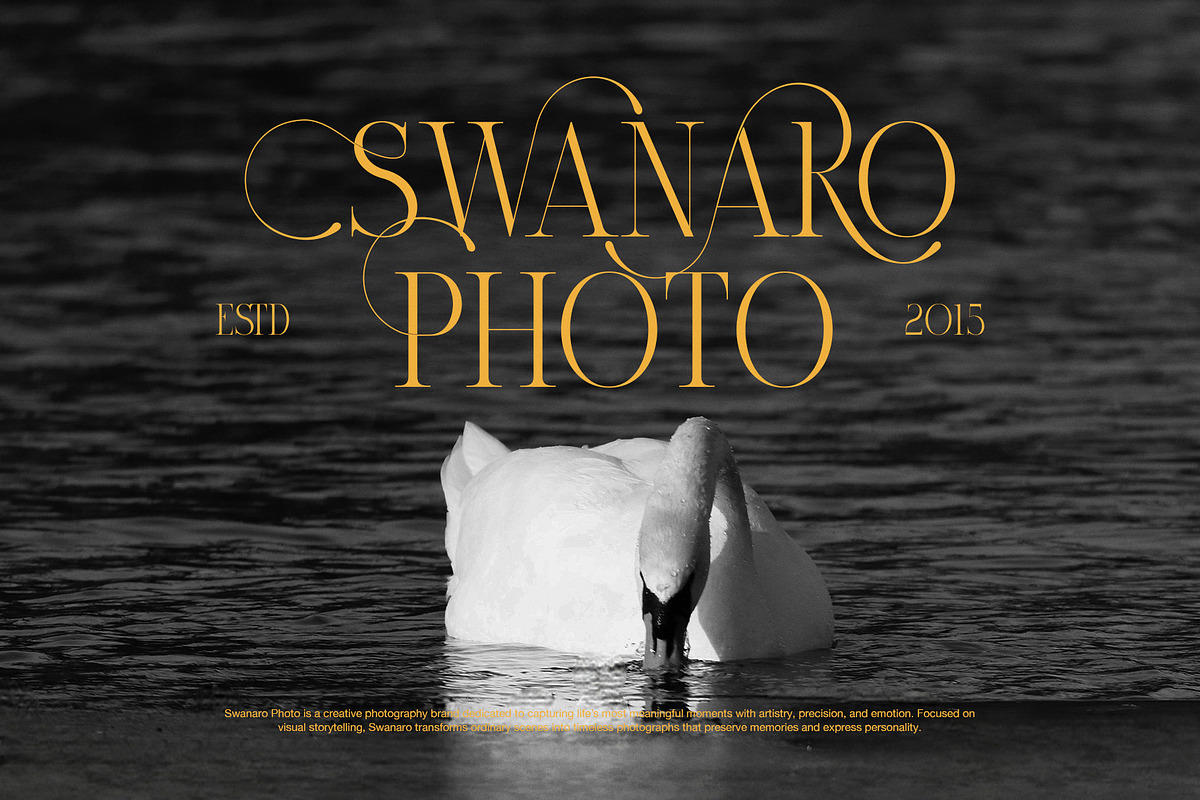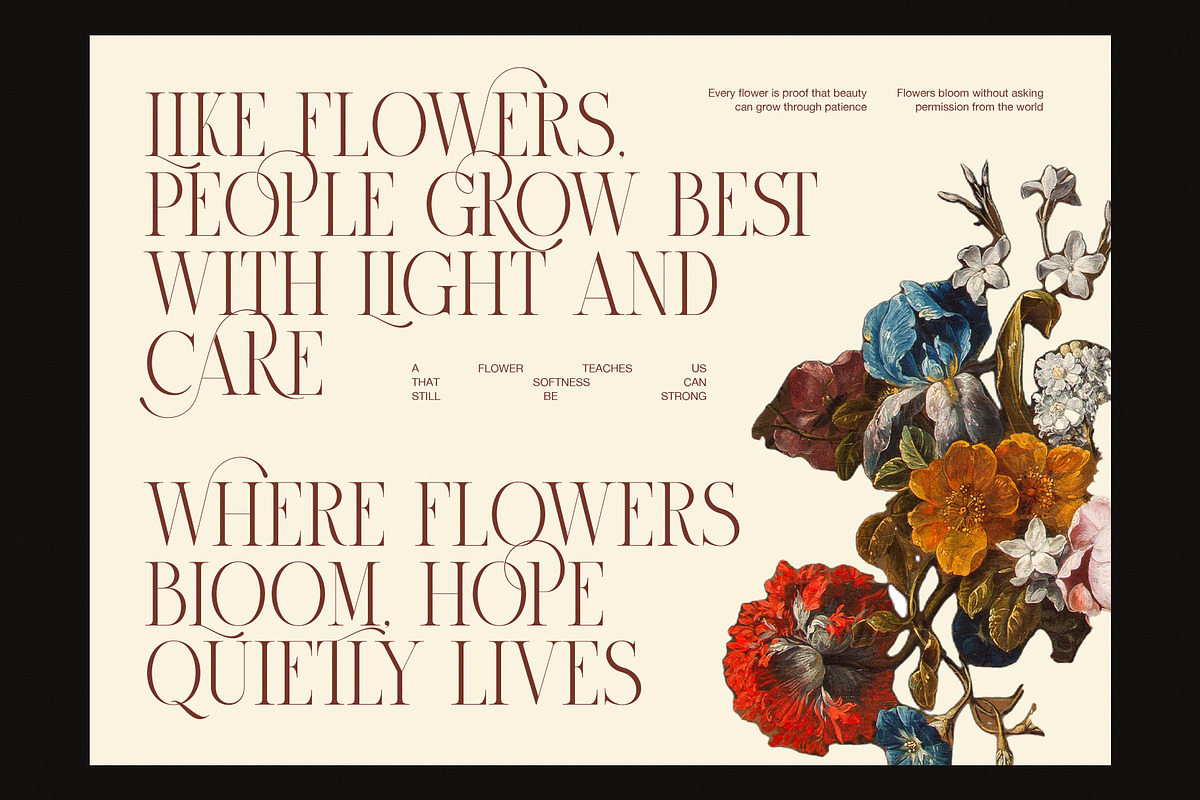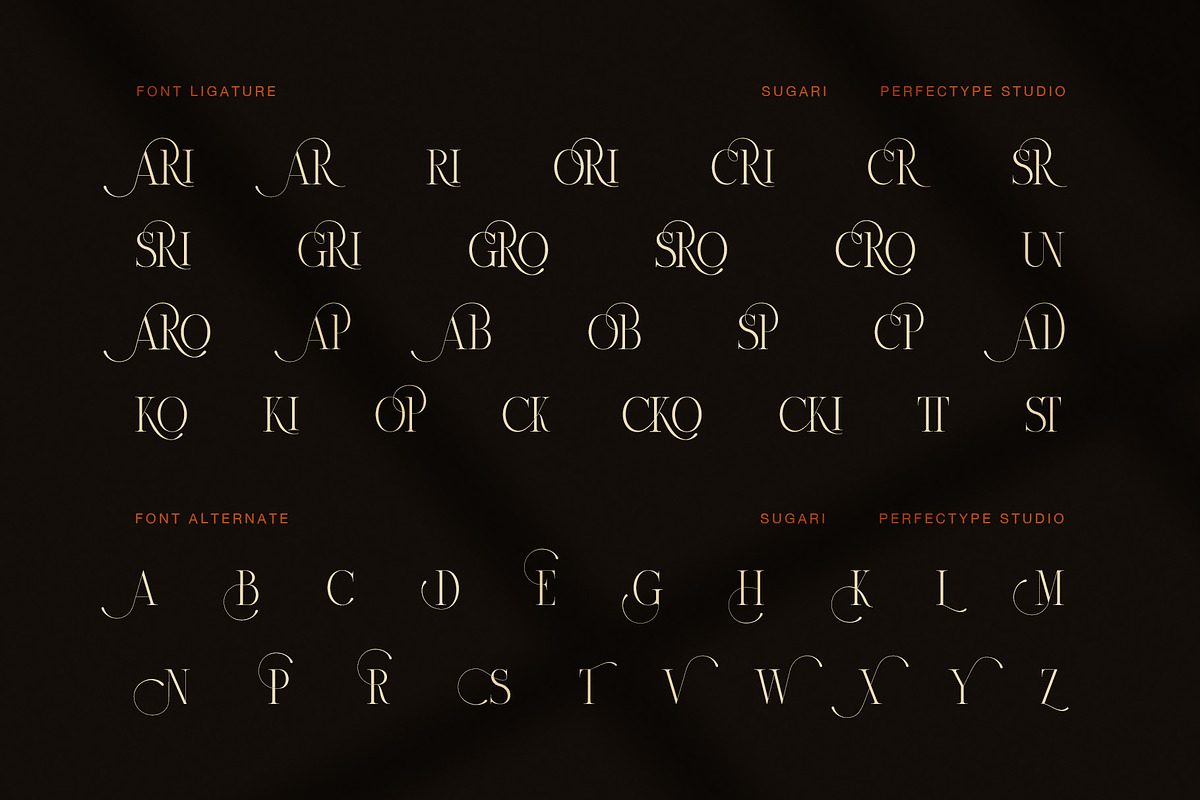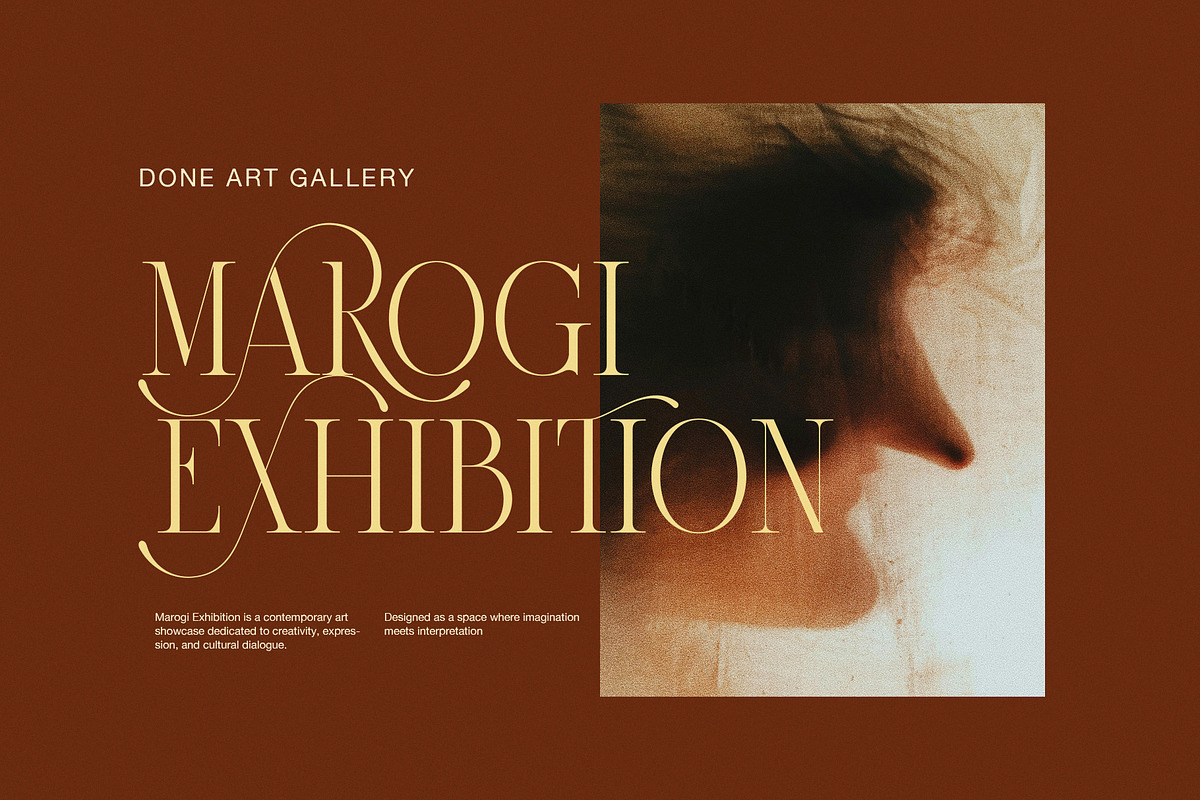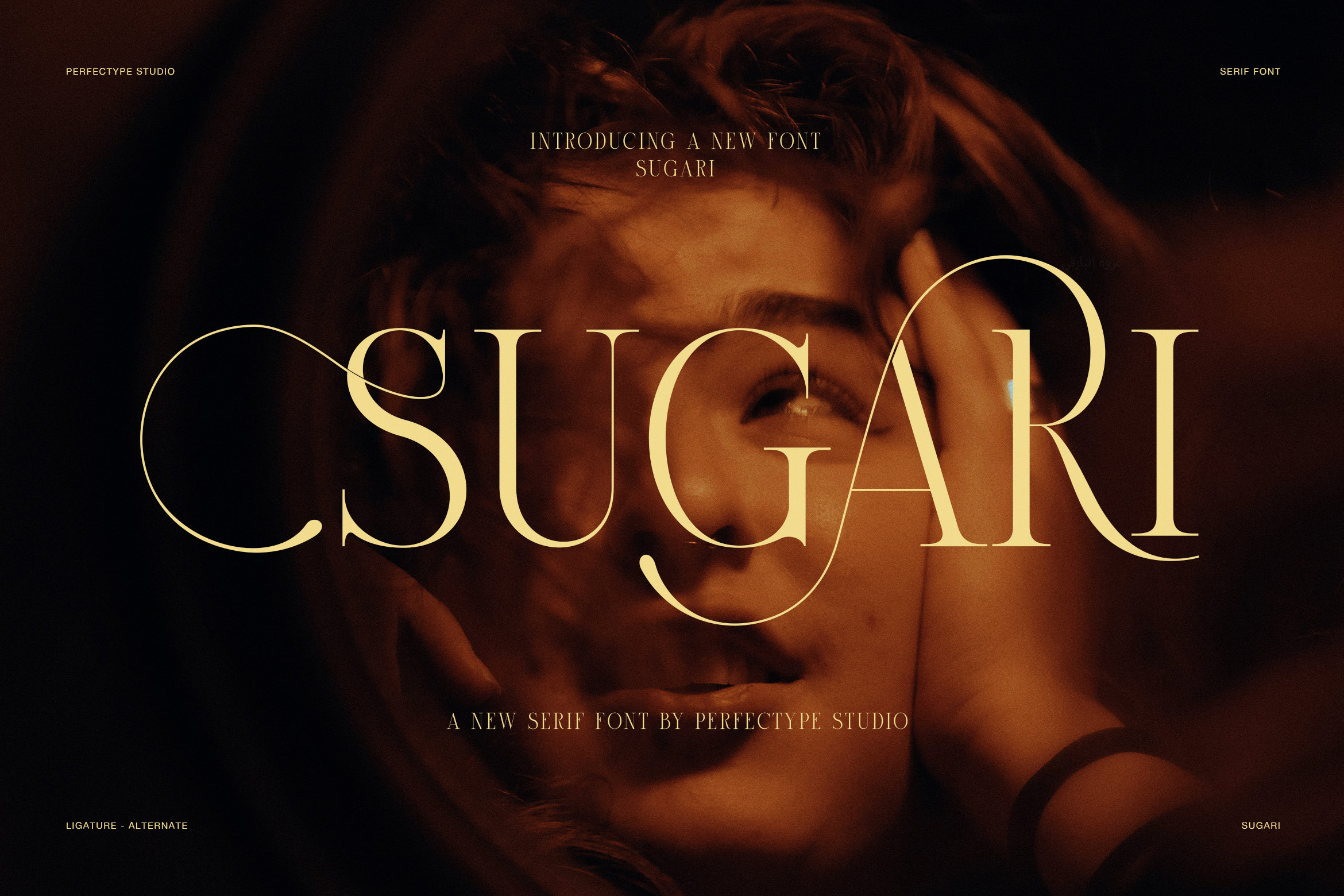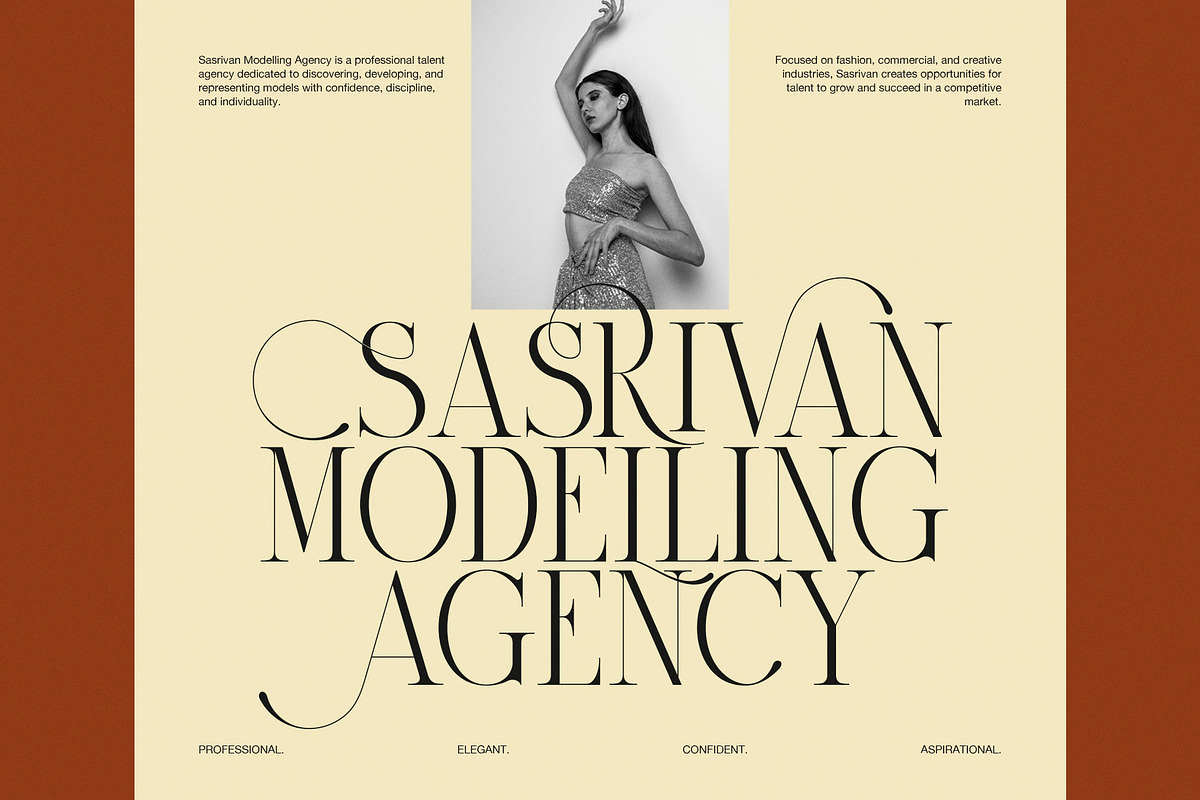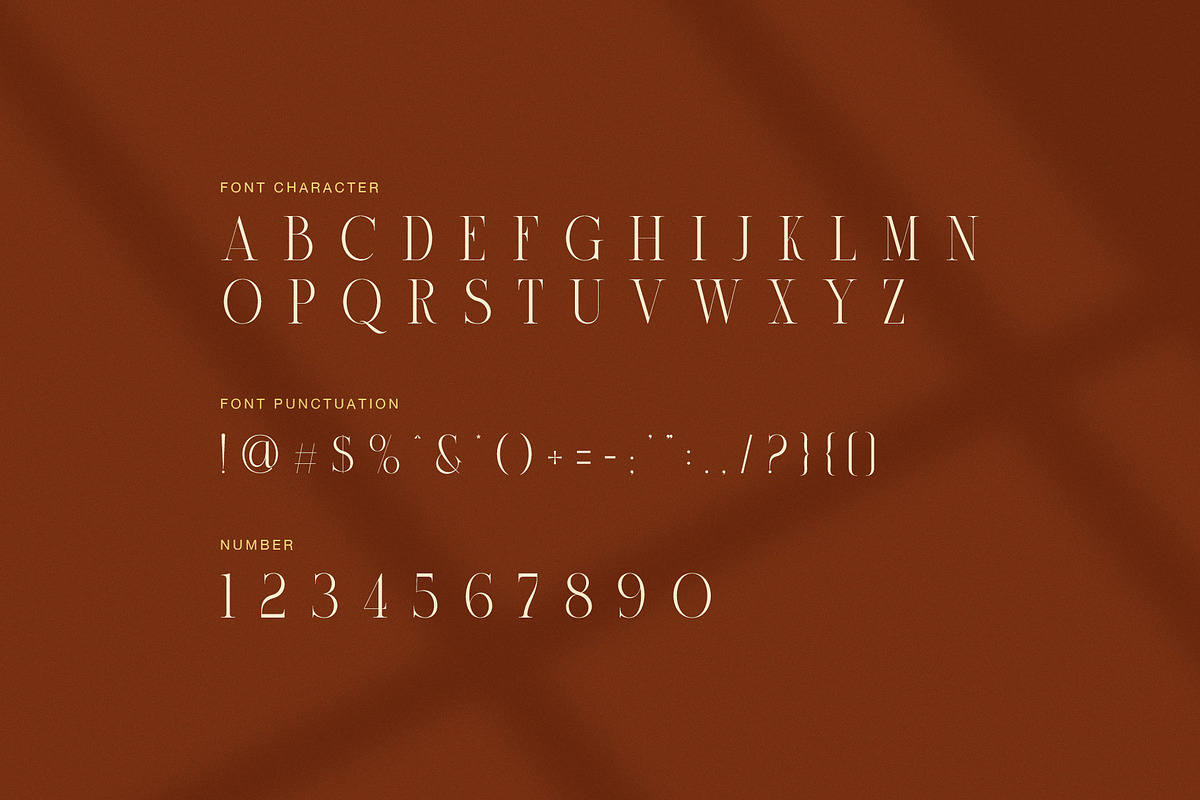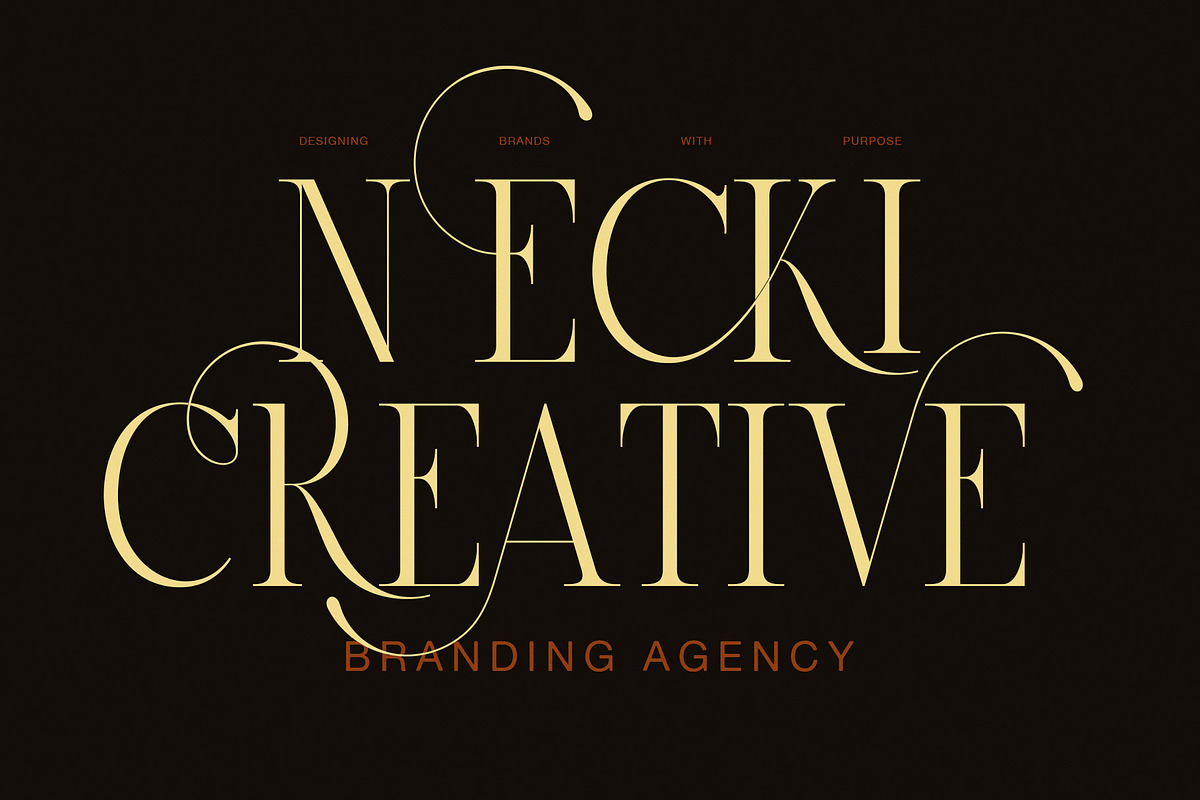
Sugari Luxury Swash Serif Font
Sugari is a luxury swash serif font created for fashion branding, elegant logos, editorial layouts, and refined creative projects. With tall proportions, delicate hairlines, and graceful curves, Sugari brings a sophisticated and expressive character to every design. As a result, it works beautifully when typography needs to become the main visual focus.
The design combines fine strokes with strong vertical forms, creating a striking contrast that feels both delicate and confident. At the same time, its spacious letterforms give headlines a clean and polished appearance. Therefore, Sugari is an excellent choice for designers who want a premium type style with a strong visual identity.
One of Sugari’s defining qualities is its graceful movement. The sweeping curves and extended strokes add a sense of rhythm without making the lettering feel heavy. Instead, the forms flow naturally across the page, creating an elegant visual balance. This quality makes the font especially effective for sophisticated brand names, fashion titles, beauty campaigns, and artistic compositions.
The refined proportions also give Sugari a strong editorial feel. Large words appear luxurious and dramatic, while smaller supporting text can create a softer and more understated mood. Because of this balance, the font can move easily between bold statements and subtle details.
Sugari Font Features
High contrast serif design
Elegant and refined letterforms
Tall, slender proportions
Graceful sweeping curves
Delicate hairlines and strong stems
Sophisticated fashion character
Premium editorial appearance
Distinctive decorative details
Numbers and punctuation included
Excellent for large display typography
Sugari performs best at medium to large sizes, where its fine details and graceful forms can be fully appreciated. Meanwhile, its clean structure helps maintain a polished appearance across different layouts. As a result, designers can create memorable typography without sacrificing elegance.
Its luxurious appearance makes it especially suitable for fashion houses, beauty brands, jewelry labels, photography studios, art galleries, hotels, and premium product presentations. Moreover, the font works beautifully for wedding stationery, magazine covers, campaign titles, posters, packaging, and social media graphics.
Sugari also brings a romantic and artistic quality to visual identities. Its flowing forms can soften a bold composition, while its sharp contrast adds a sense of confidence and modern style. Thus, it offers a versatile solution for projects that need both elegance and personality.